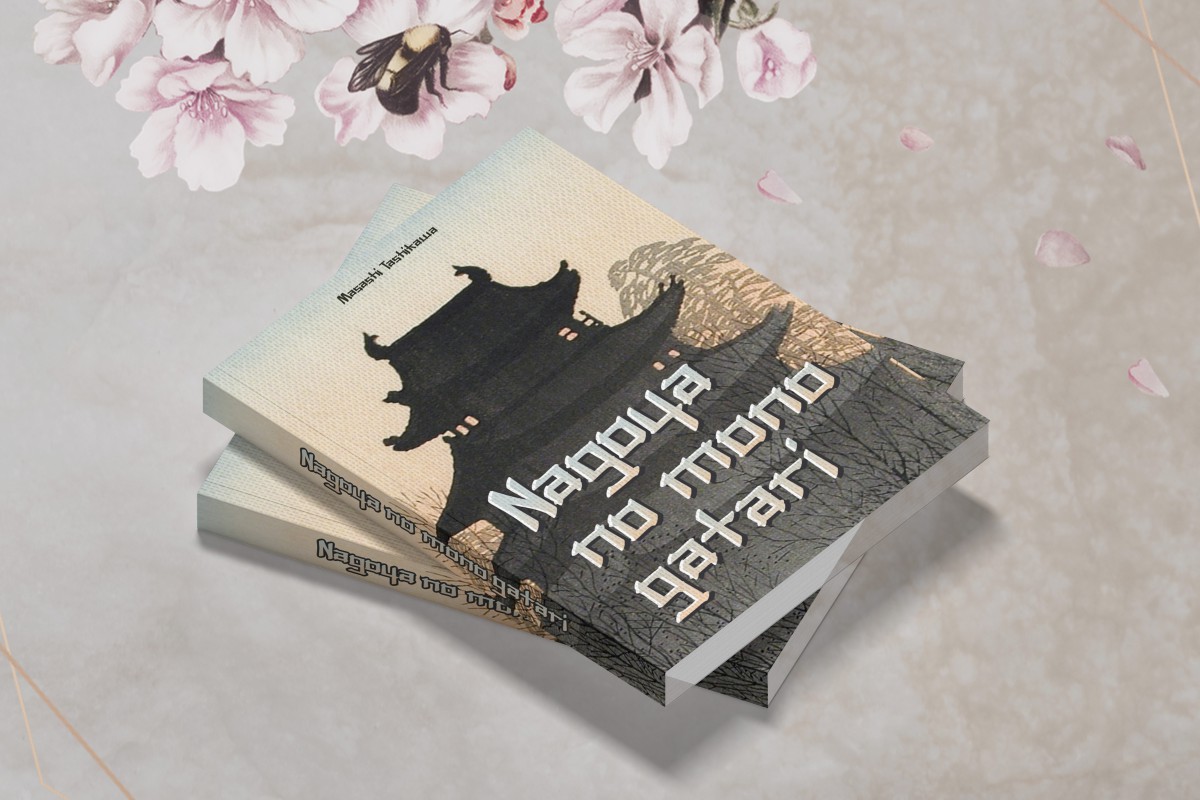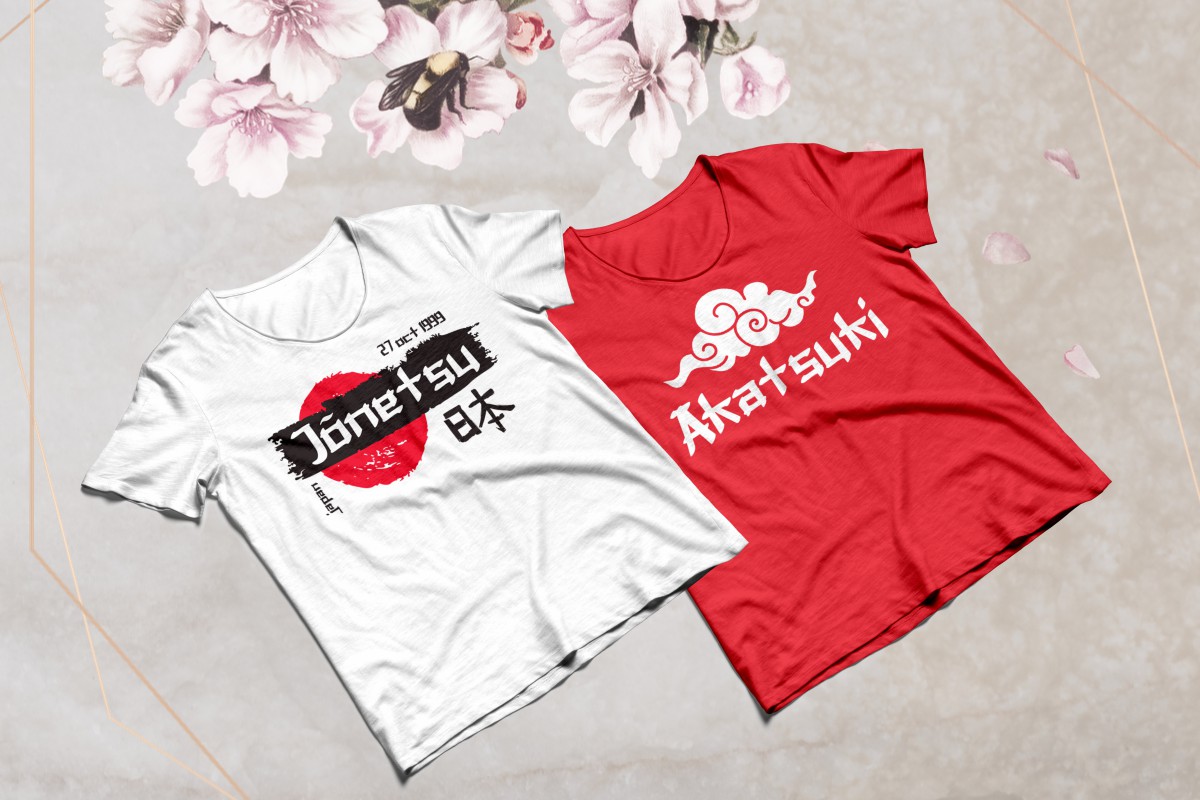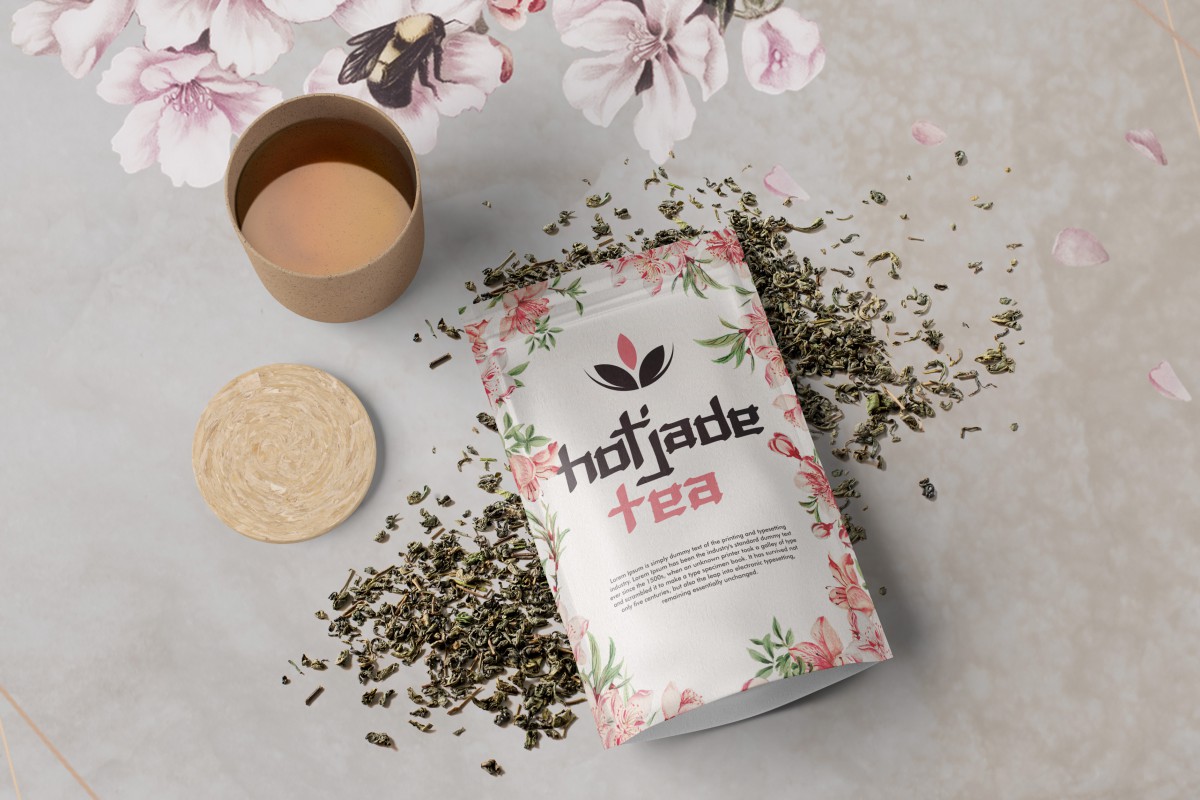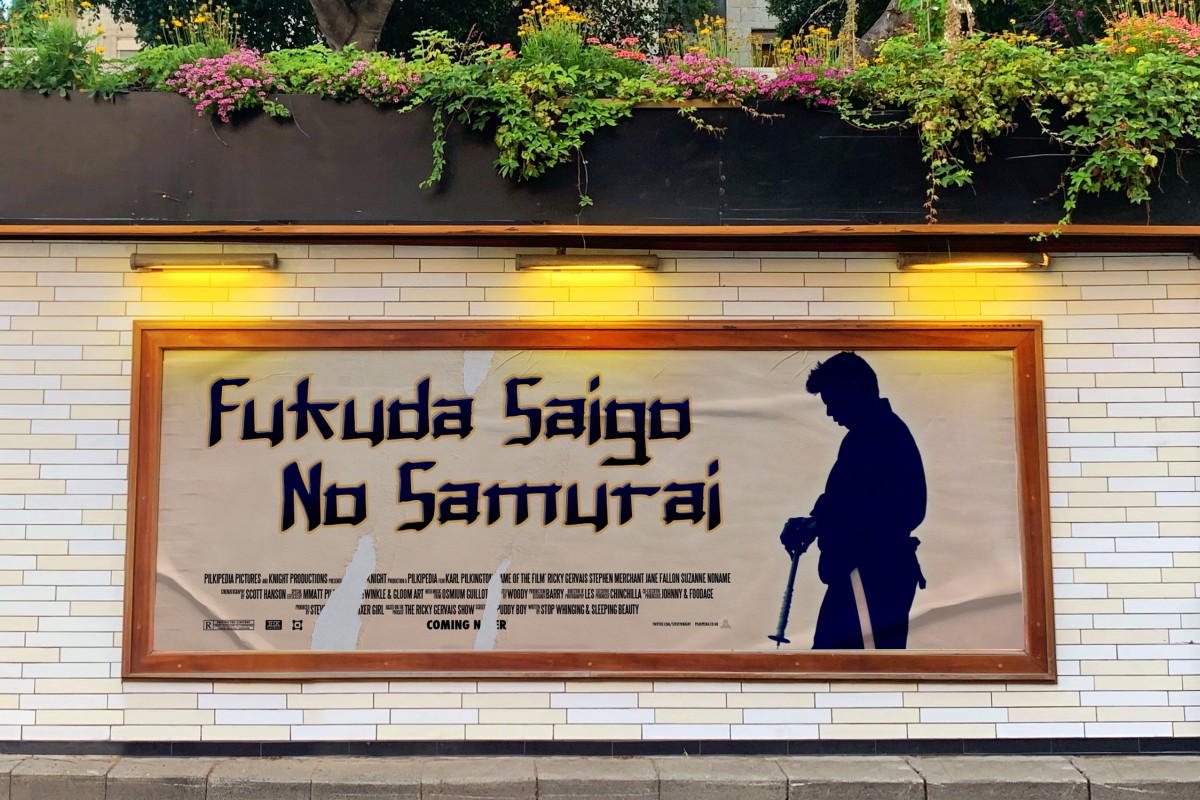
Nichibotsu Font
Nichibotsu Font is a display typeface inspired japanese type brush. This type of font perfectly made to be applied especially in logo, and the other various formal forms such as banner, book title, label, products design, or any type of japanese look purpose.
Combined ethnic and cultural elements in each of the glyphs. This font is suitable for those of you who like japanese cultured, besides this font is also suitable for those of you who have a japanese culture business related, such as clothing brand, restaurant, herbal drink, literature work, martial arts etc.